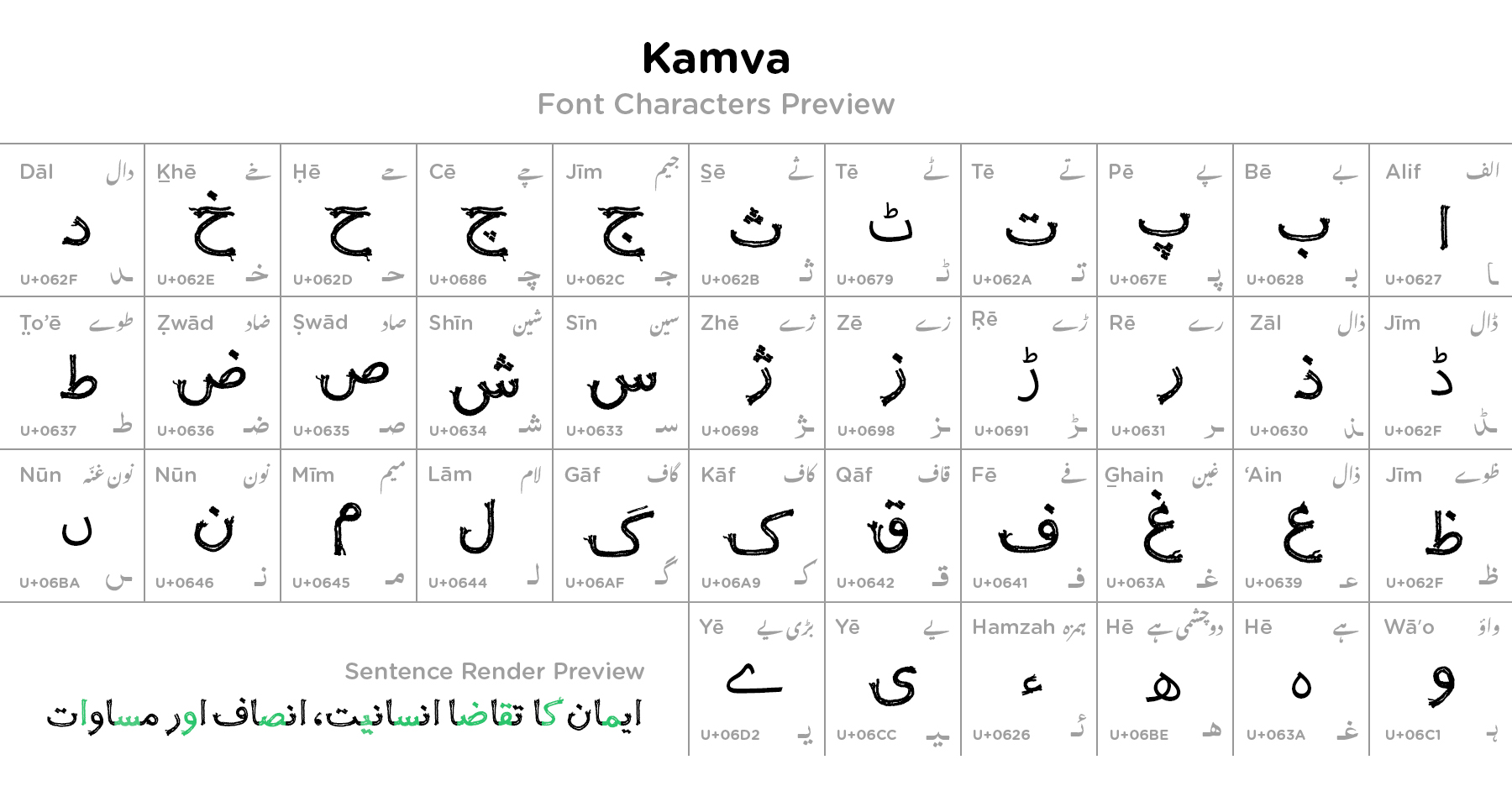
Kamva is a chalk-writing Arabic font designed by Atiyeh Kamjo, an Arabic font designer. It is a trademark of Fontiran and was licensed in 2016. This font shows a childlike liveliness with its uneven strokes and rounded edges, resembling chalk scribbles on a rough surface. This unusual font with its untidy strokes gives your text a natural hand-written feel. This uneven hollow font consists of 352 characters and 270 glyphs making it a multipurpose typeface with a variety of uses like creating creative content, making posters specifically play cards, and also in children’s books and cover pages to attract the younger audience. The characters are not entirely filled leaving empty spaces like those painted with brush. However, the thickness remains constant but the negative spaces are uneven giving the text an irregular feel. It is highly readable yet can’t be used for longer texts. Kamva has softer edges than the other digital counterparts, showing how chalk naturally deposits on a rough surface. It is only available in Medium (Normal) which can be a limiting factor to its usability.
Kamva